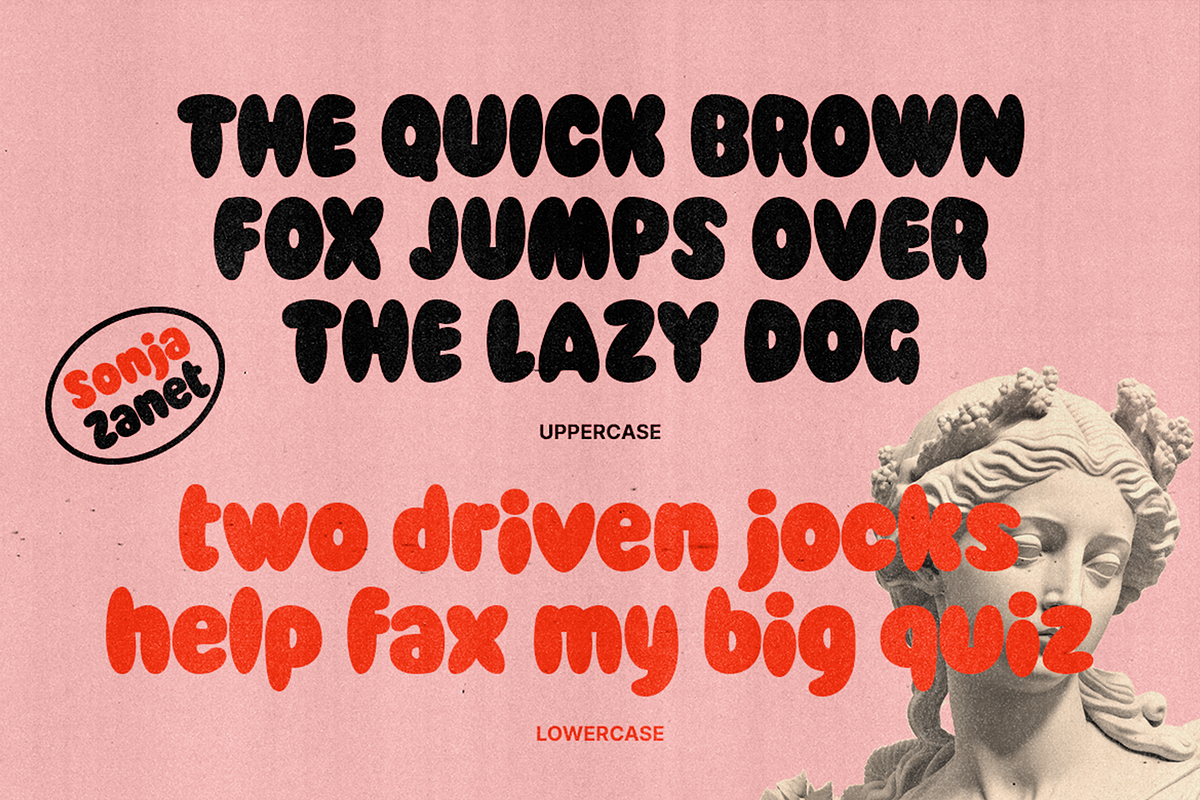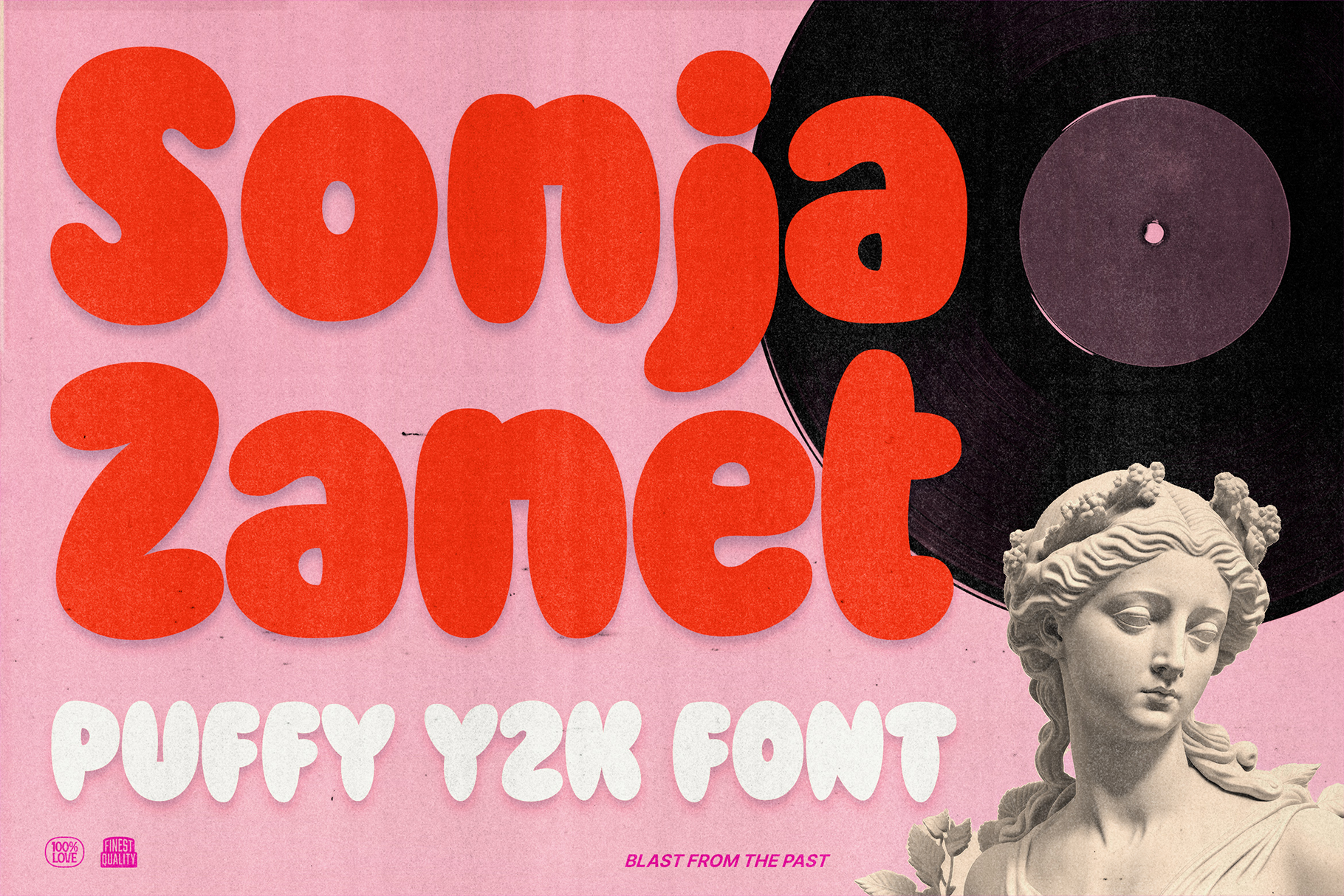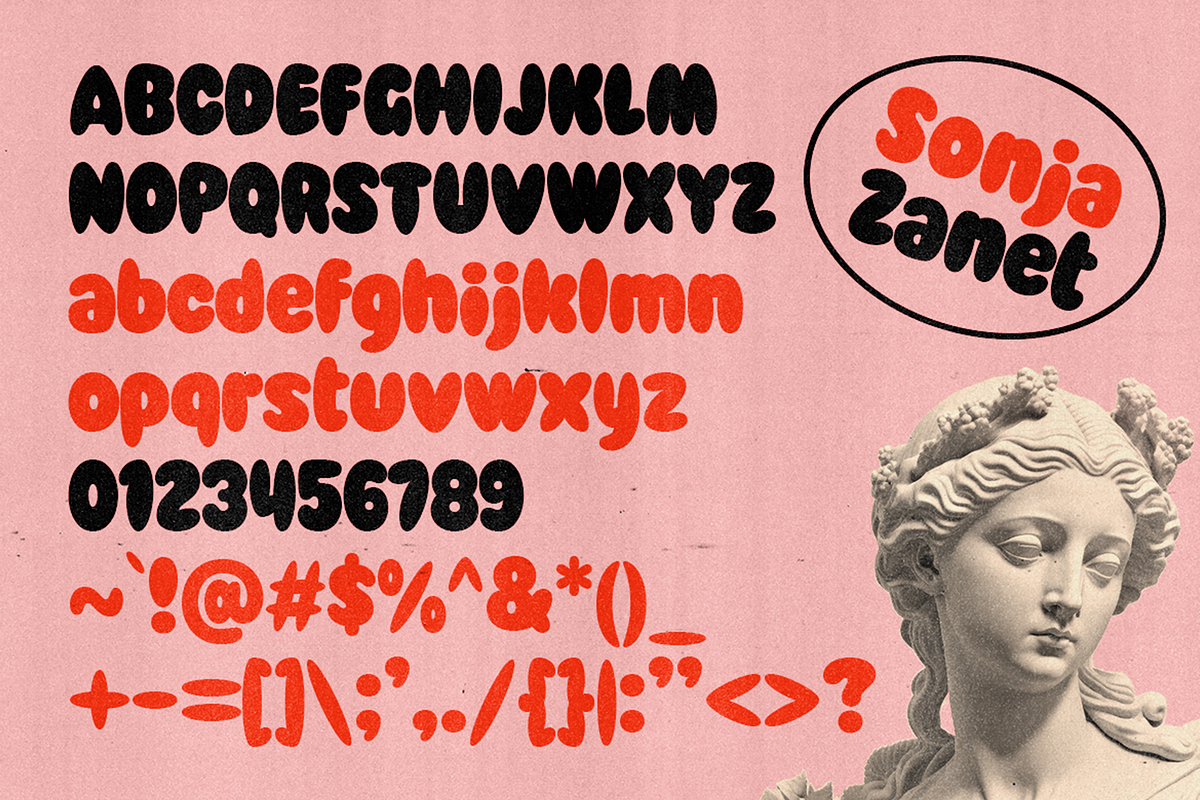
Sonja Zanet - Bubble Y2K Fonts
Sonja Zanet is a bubble-shaped font inspired by the invasion of the Y2K visual aesthetic trend nowadays. We talked about album artwork, posters, music videos, and many more.
Perfectly fit for logo, branding, poster, music project, album cover, cover artwork, events, y2k concepts, graffiti concepts, brutalism, modern aesthetics, graphic design project, fashion, apparel, merchandise, and many more.